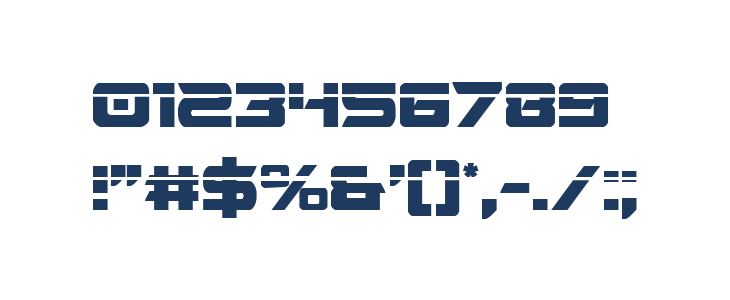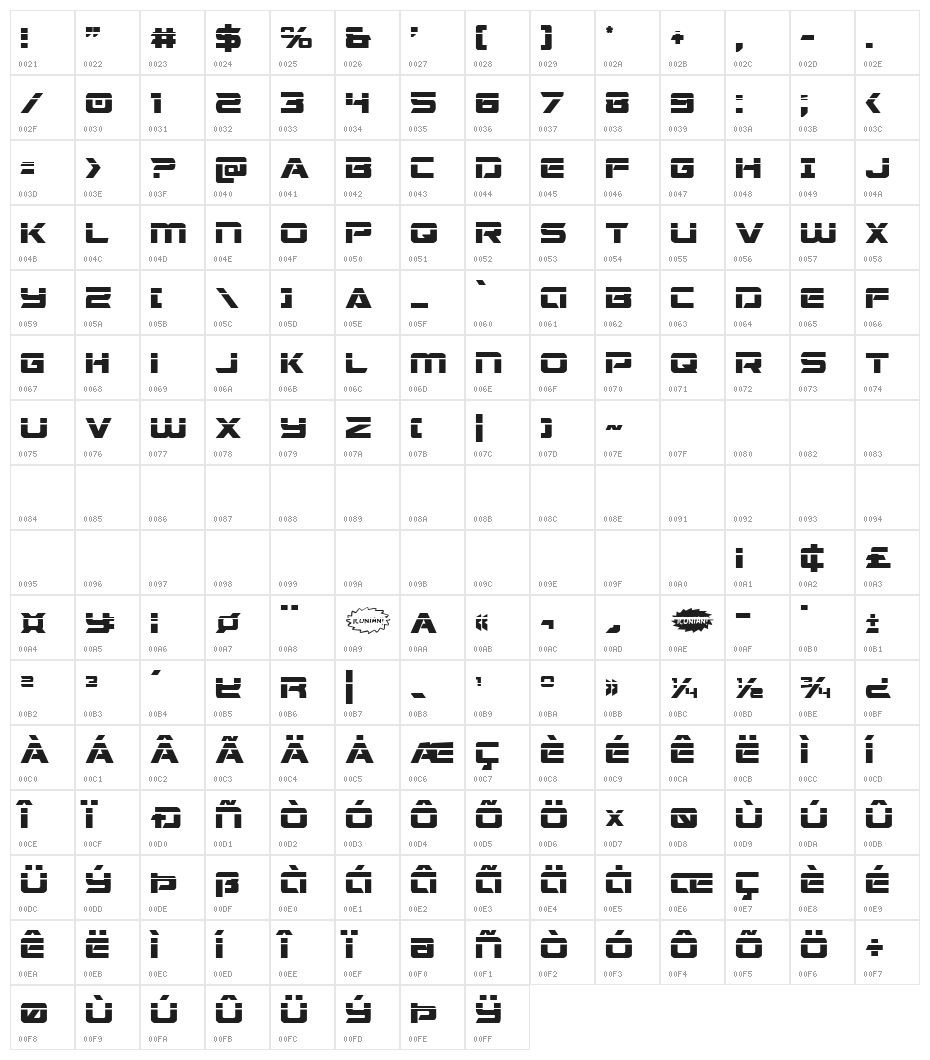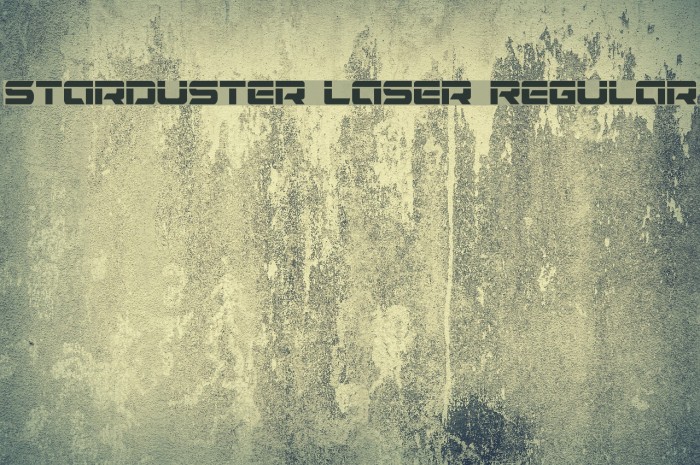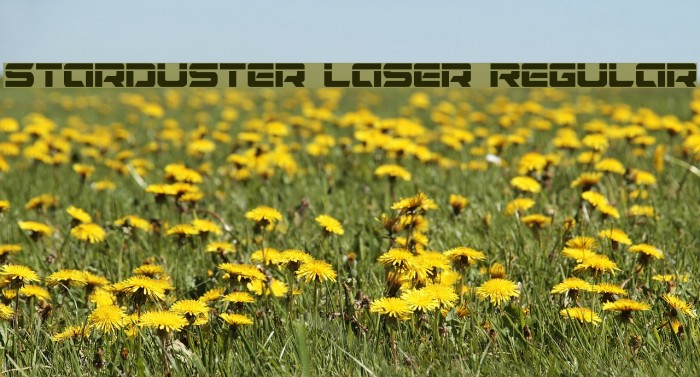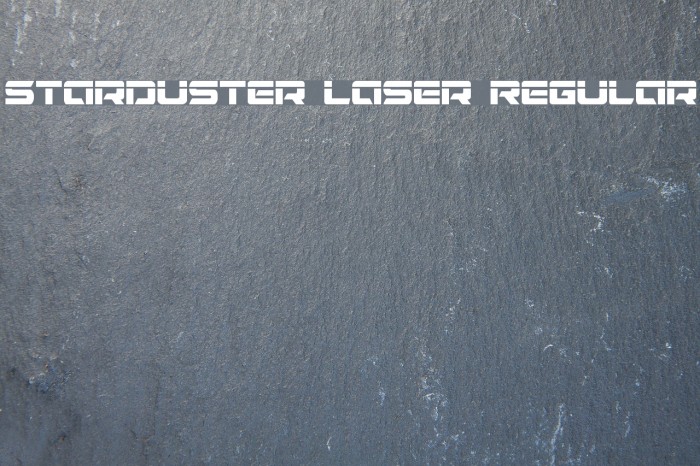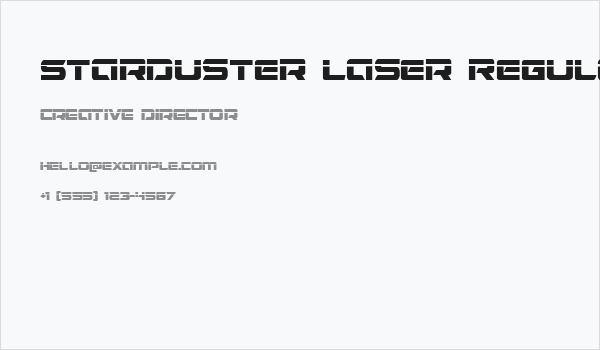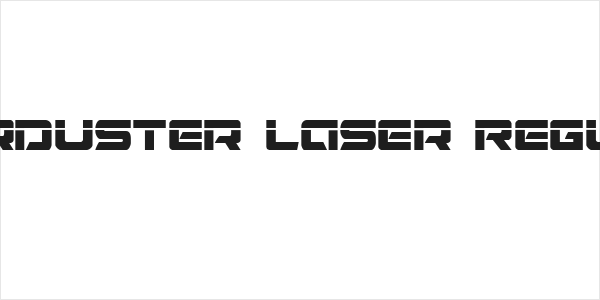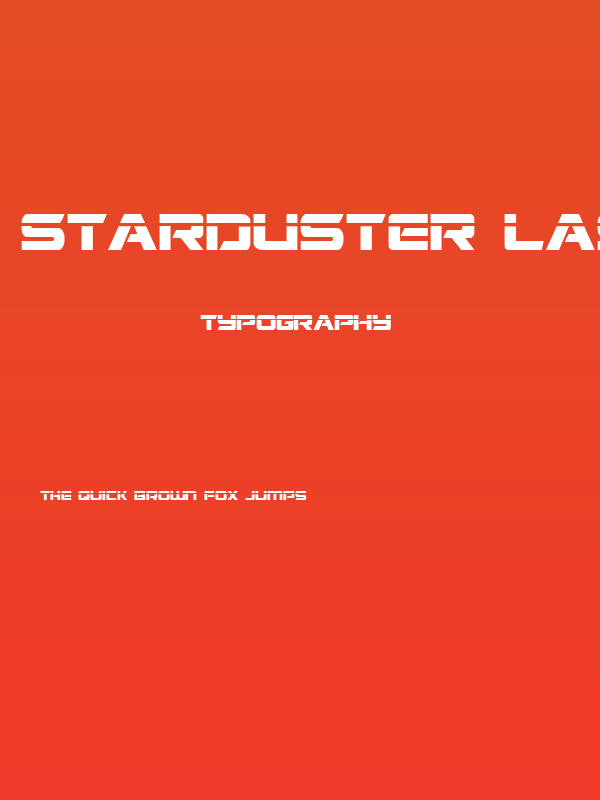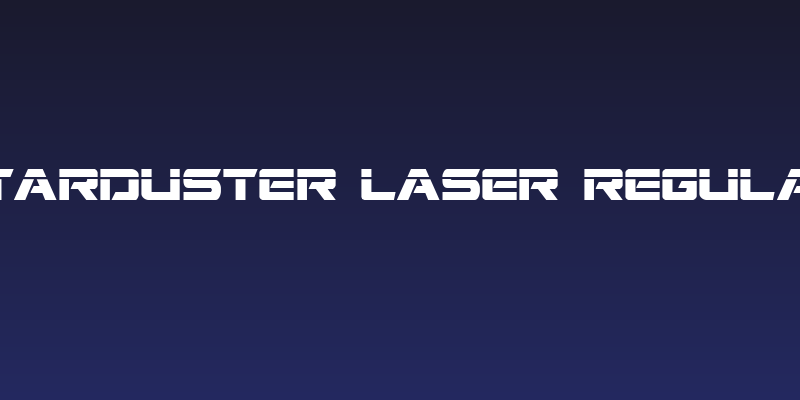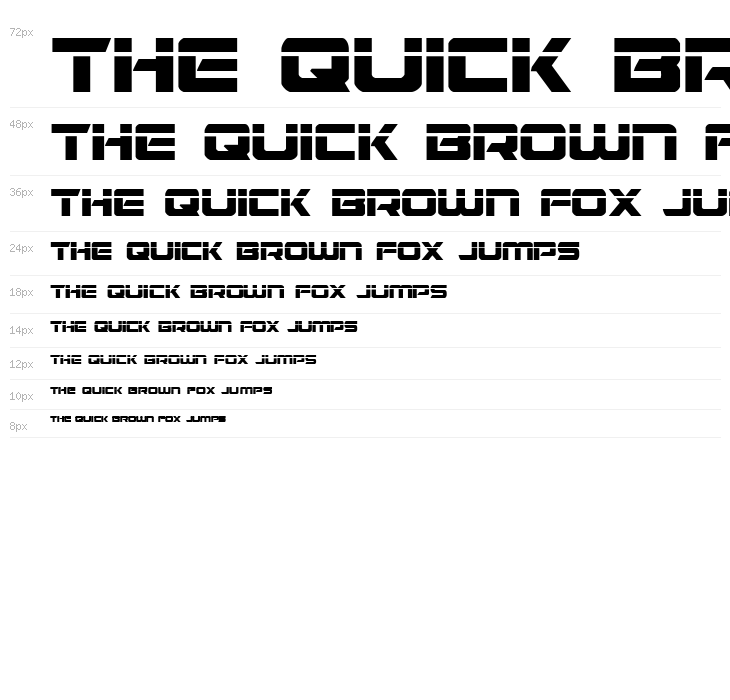
Starduster Laser Regular Font
Starduster Laser Regular Description
This font features a futuristic and geometric design, characterized by bold, angular shapes and a strong presence. The letters are constructed with sharp edges and a blocky appearance, giving it a distinctly modern and technological feel. The uppercase and lowercase letters maintain a consistent style, with the uppercase being slightly more pronounced. Numbers and special characters follow the same design principles, ensuring uniformity across the typeface. The font's unique style makes it stand out, ideal for projects that require a modern and edgy look.
| Proposed Projects | Ideal for sci-fi themed designs, video game interfaces, tech branding, and futuristic posters. |